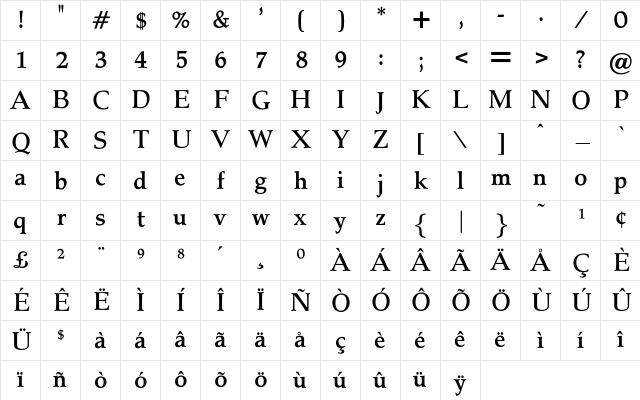
OPTIPathway-Medium Regular Free Font
OPTIPathway-Medium Regular
Design Context for OPTIPathway-Medium
OPTIPathway-Medium is a composed and adaptable typeface that performs quietly and consistently across a wide range of design contexts.
Pro Tip: Use OPTIPathway-Medium in both headline and body roles to test its range before committing to a single application.